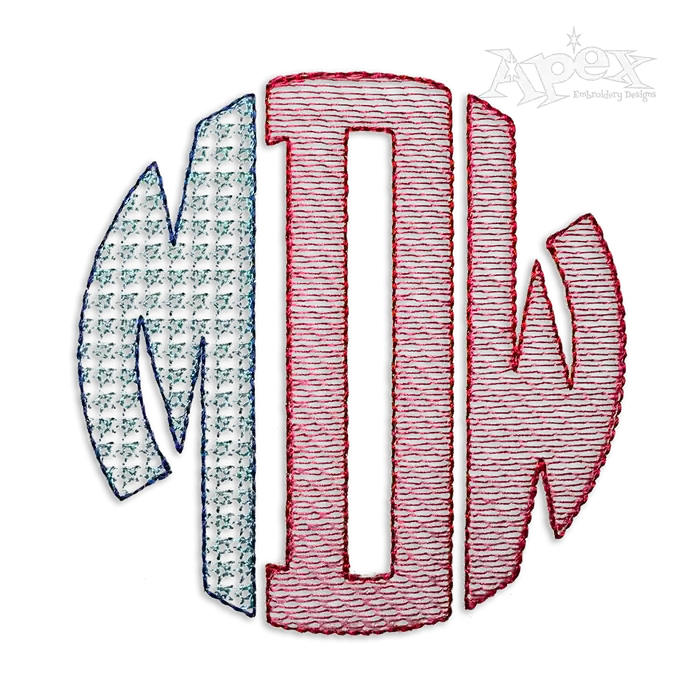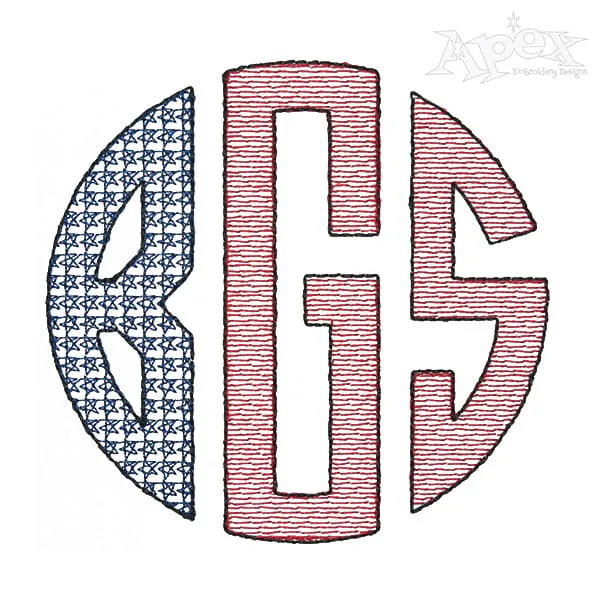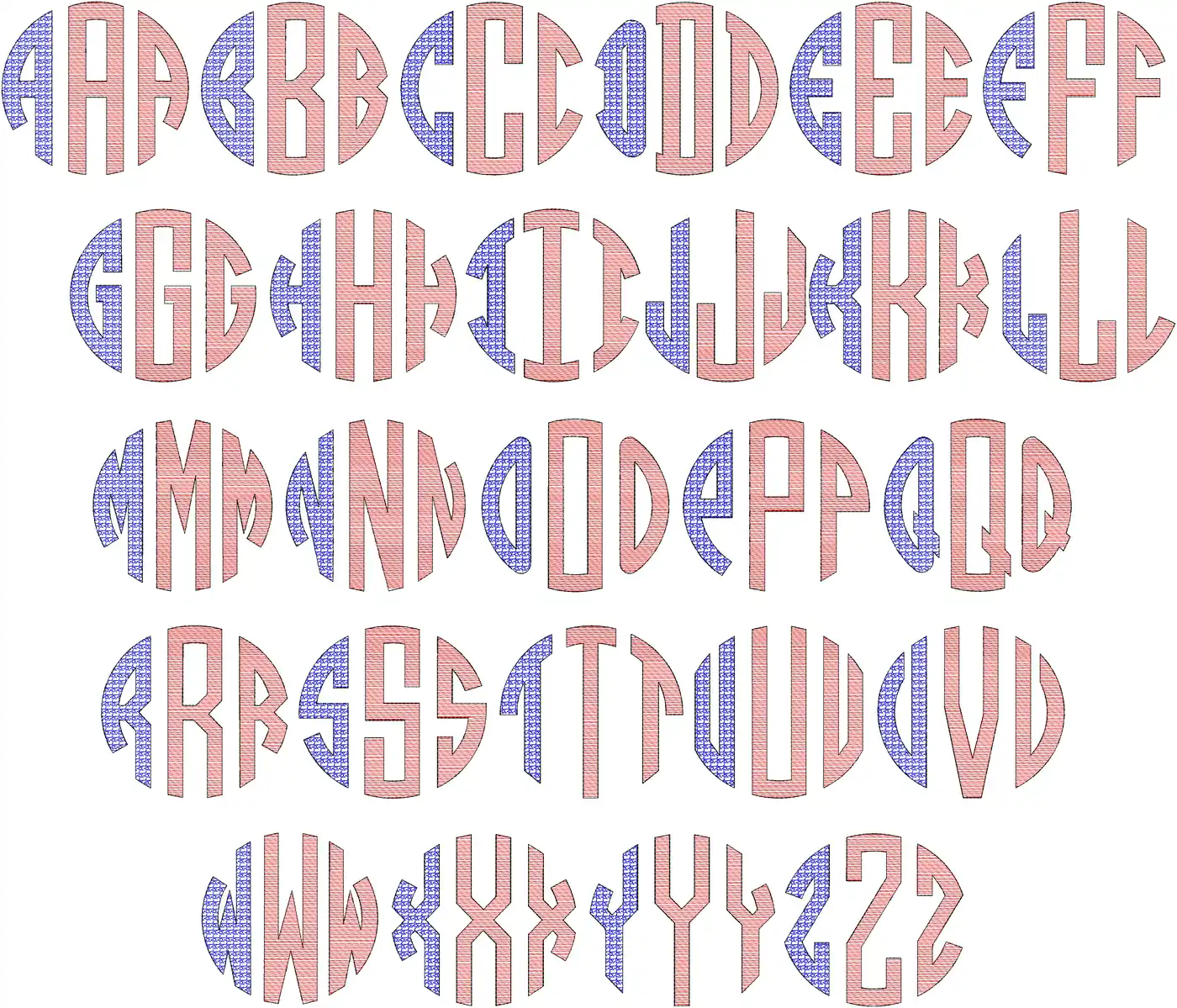
Sketch USA Flag Circle Monogram Embroidery Font
There is a distinct nostalgia in classic American summer gatherings—sun-bleached cotton, river breezes, and the effortless charm of patriotic celebrations. When digitizing the Sketch USA Flag Circle Monogram, our aim was to merge the time-honored discipline of a balanced circular monogram with the relaxed, breathable character of sketch-style embroidery. The resulting letterforms carry an artisanal, lightly sketched aesthetic reminiscent of vintage coastal flags, offering a light-on-the-fabric drape that stays soft against the skin rather than feeling heavy or stiff.
Sketch USA Flag Circle Monogram Craft & Letterform Details
Translating an iconic emblem into personal lettering demands a careful balancing act of contour and negative space. Rather than crowding the letterforms with dense, rigid fills, this monogram utilizes an open, directional sketch-stitch technique. The patriotic stripes and star accents weave softly into the round circular layout, mapping precisely to the curve of left, center, and right initials.
We deliberately digitized the design with clean, coordinated color stops so you can seamlessly alternate traditional red, white, and navy threads, or play with tone-on-tone coastal palettes like washed indigo and vintage cream. The satin-line boundary defines each arc with crisp clarity, while the breezy fill prevents fabric puckering, ensuring your needle glides effortlessly through delicate summer knits and structured linens alike.